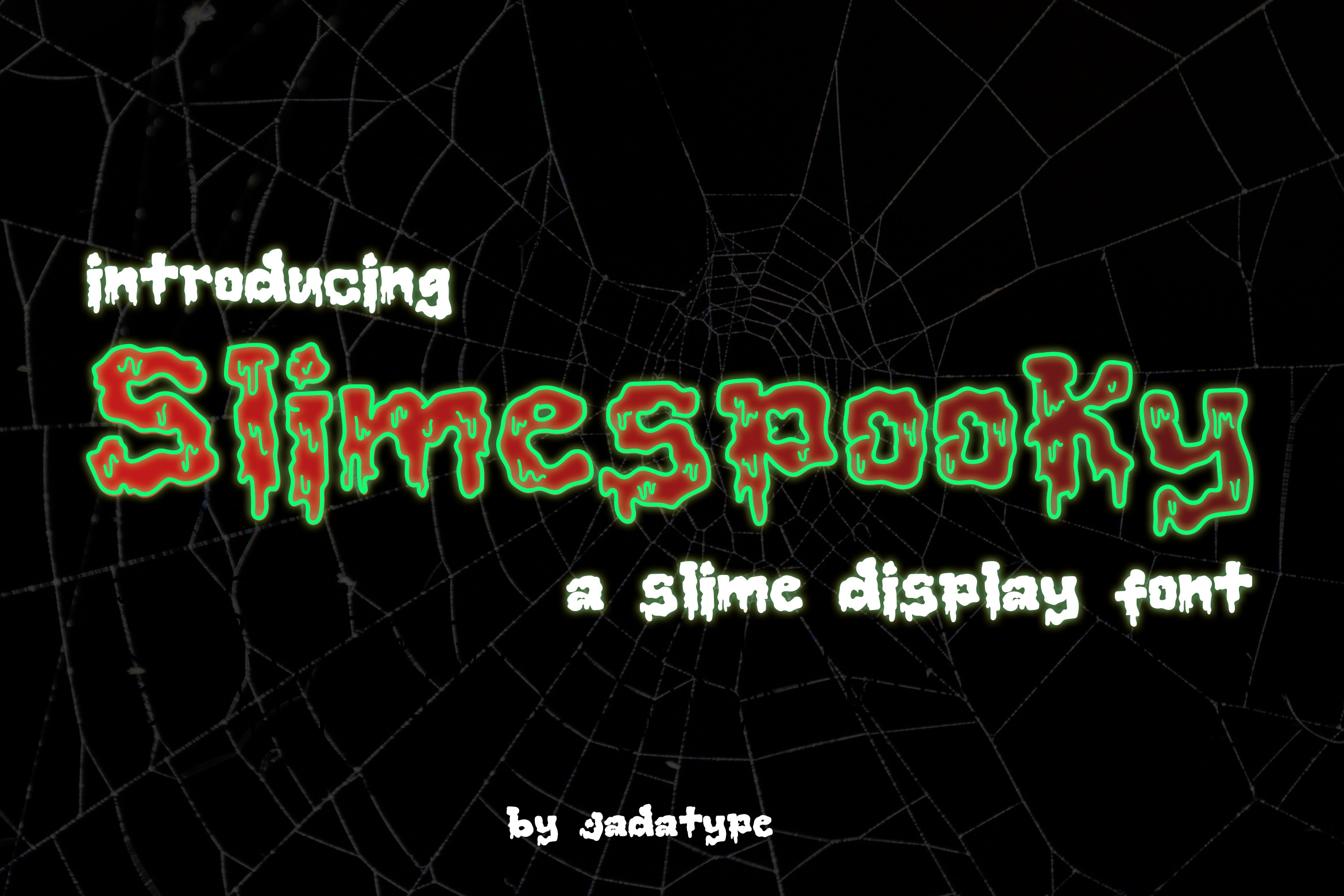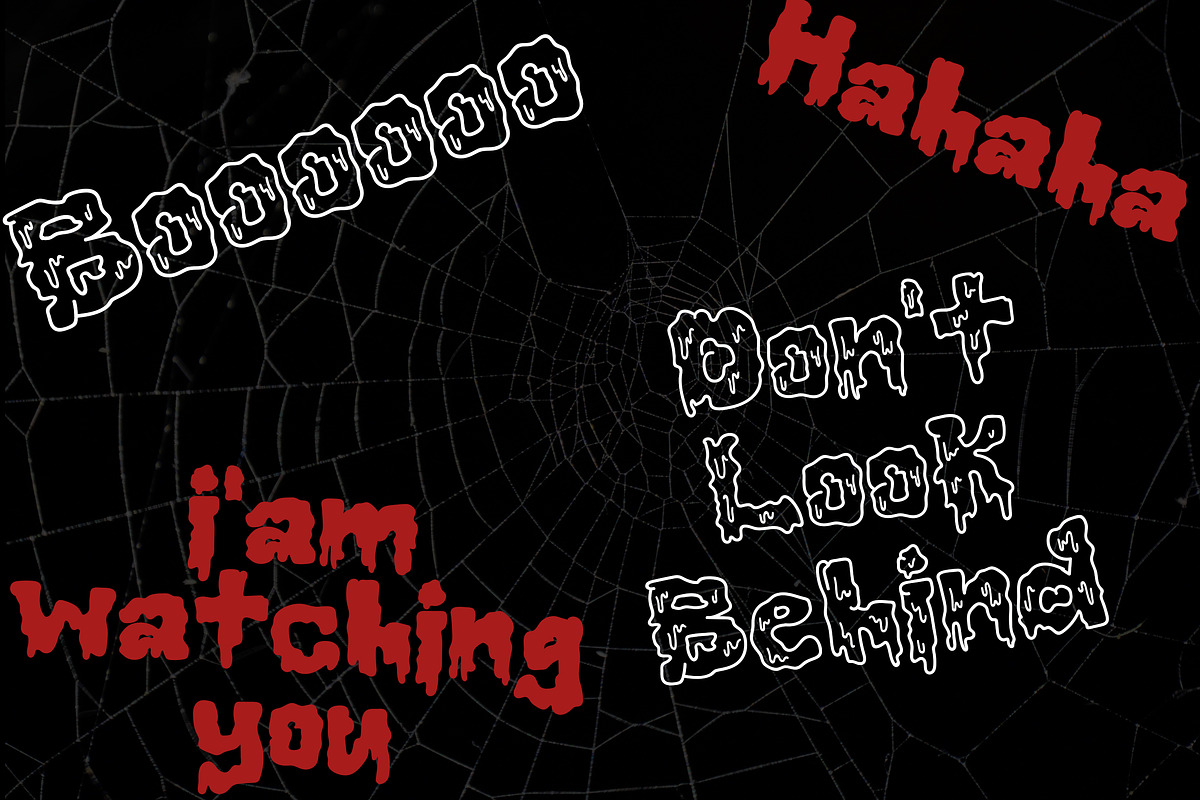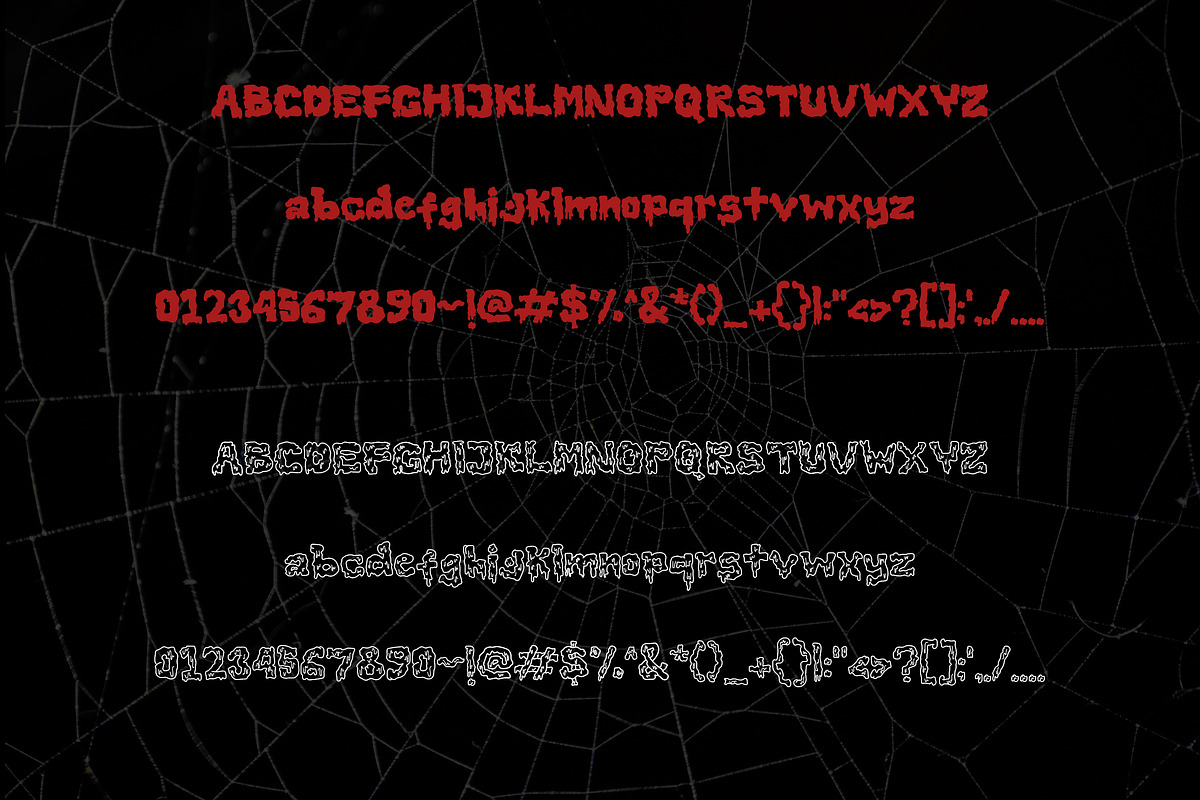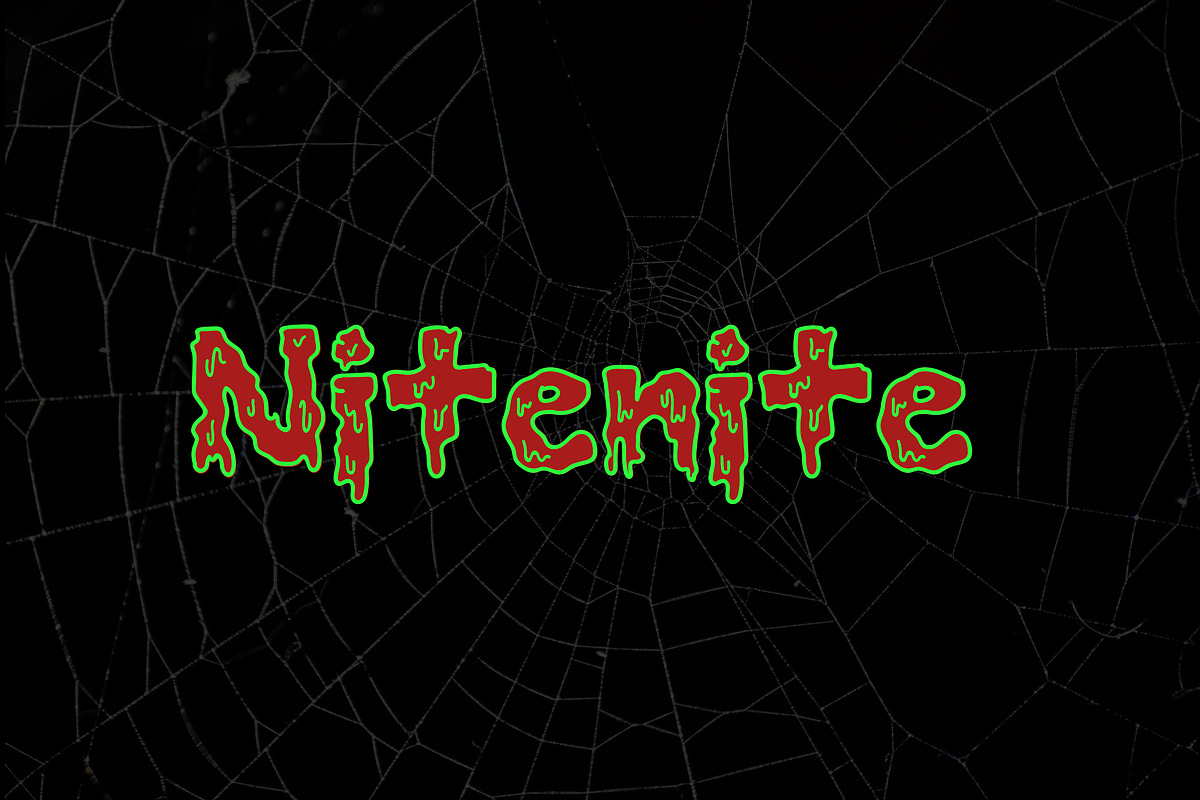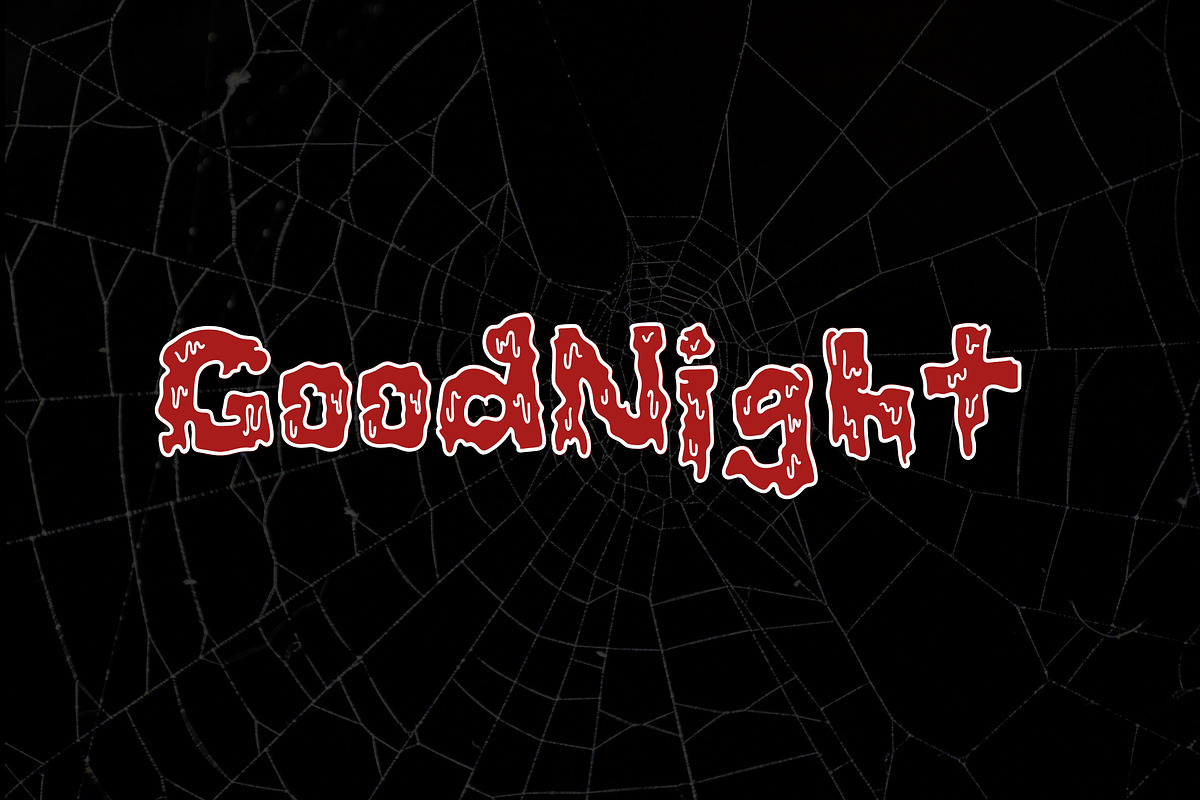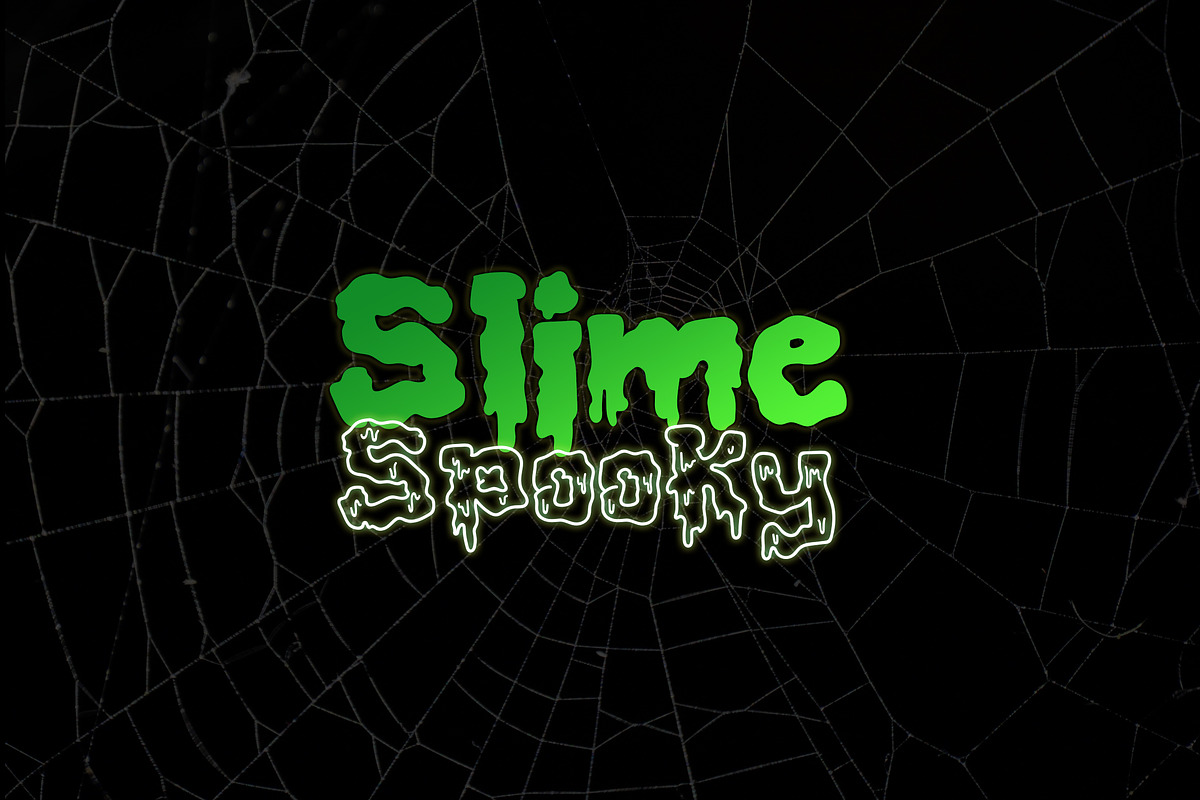
Slimespooky Font | Halloween Theme
Slimespooky is a fun display font perfect for Halloween, featuring dripping, gooey letters that ooze with spooky charm. Its playful, slime-covered design makes it ideal for party invitations, haunted house flyers, and creepy event posters. With its bold, quirky style, Slimespooky captures the eerie fun of the season, adding a lighthearted yet spooky twist to any project.